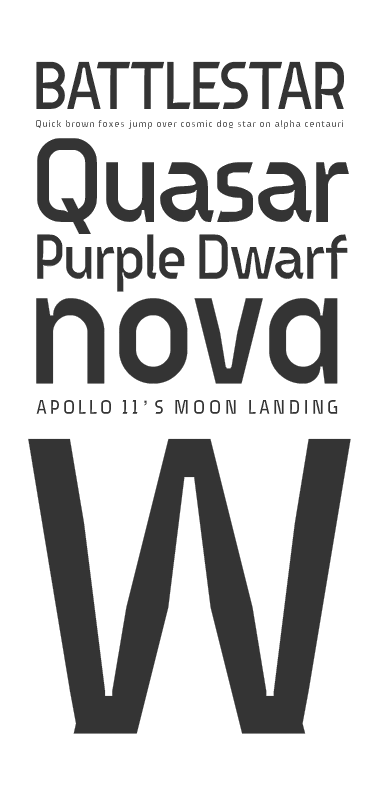
Beautiful. Just beautiful. Innovative, too. I've been trying to enter this tiny, ink-trapped realm for a long time now. That g is incredible. I love the N. It all just fits together. 10/10 + fave.
Well, will.i.ૐ. It's been some time since your last one and once again you managed to drop a typeface that is very original and teaches us a lot. Excellent!
Did I mention the beautiful samples? Is that a bold variant that I see in the first sample?
Congratulations! FontStruct Staff have deemed your FontStruction worthy of special mention. “fs galactica” is now a Top Pick.
Hi, I'm new to fontstruct (about finished with my first font) and was looking at your brickset and all the odd shaped bricks. Did you create all those odd shapes using the "make composite" option? or is there another way? thanks,
Yet another display of excellence - a design of ink-trappy delight! 10/10++
Excellent work yet again. I love the 5.
@will.i.ૐ - As usual, a terrific font with wonderful sample pics. And I didn't know you could use a pic in the description field!
Brilliant, innovative, masterful. In other words, your usual. Awed once more.
Oh wow :0
With just that small bricks you make a masterpiece! 10/10
Beautiful, as usual! I'm with the guys. Congrats!
With works like this we learn to make fonts! Thanks.
All those little details, beautiful! 10/10
Congratulations! FontStruct Staff have deemed your FontStruction worthy of special mention. “fs galactica” is now a current Featured FontStruction.
Congrats for the FF!
Congratulations! :) Time for some new FFs
This is so beautiful and flowing, theres obviously some new tricks I need to learn. Fantastic work.
cool font. cool font cool font
You "stretchie"!!
That's so cool!
I like it!